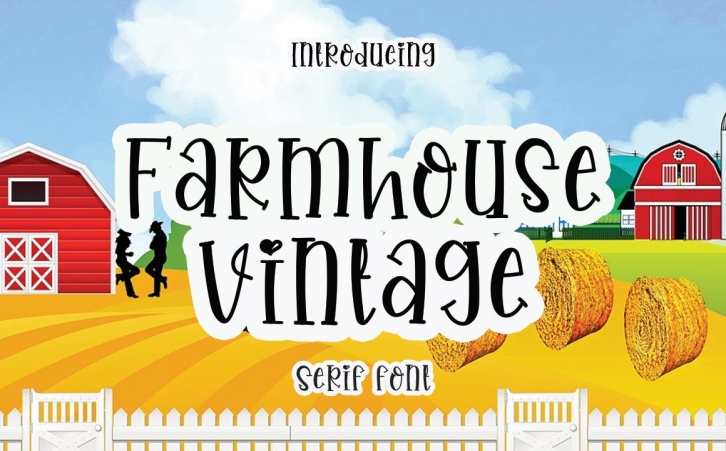
Farmhouse Vintage is a cute, quirky and fun serif font. It has a modern yet whimsical style and it will undoubtedly immerse your designs into a magical world.Â